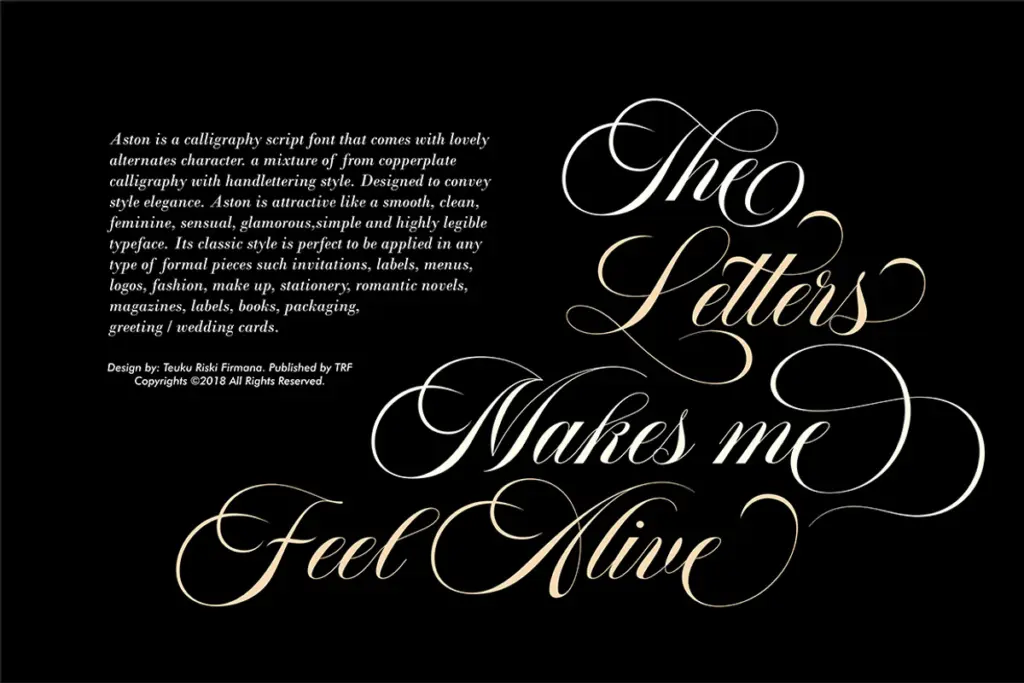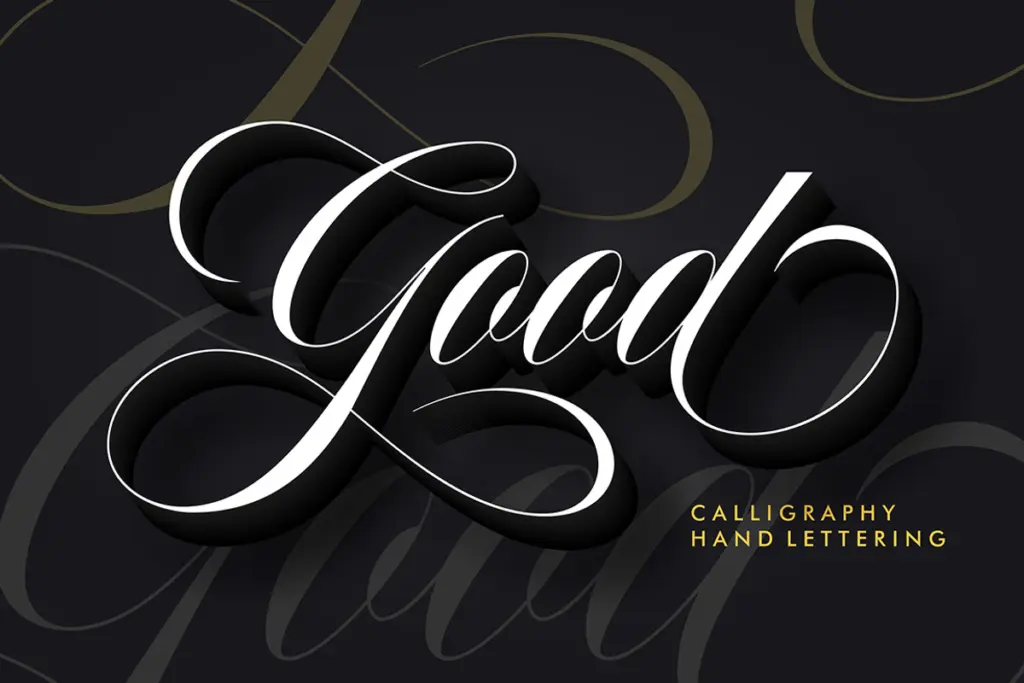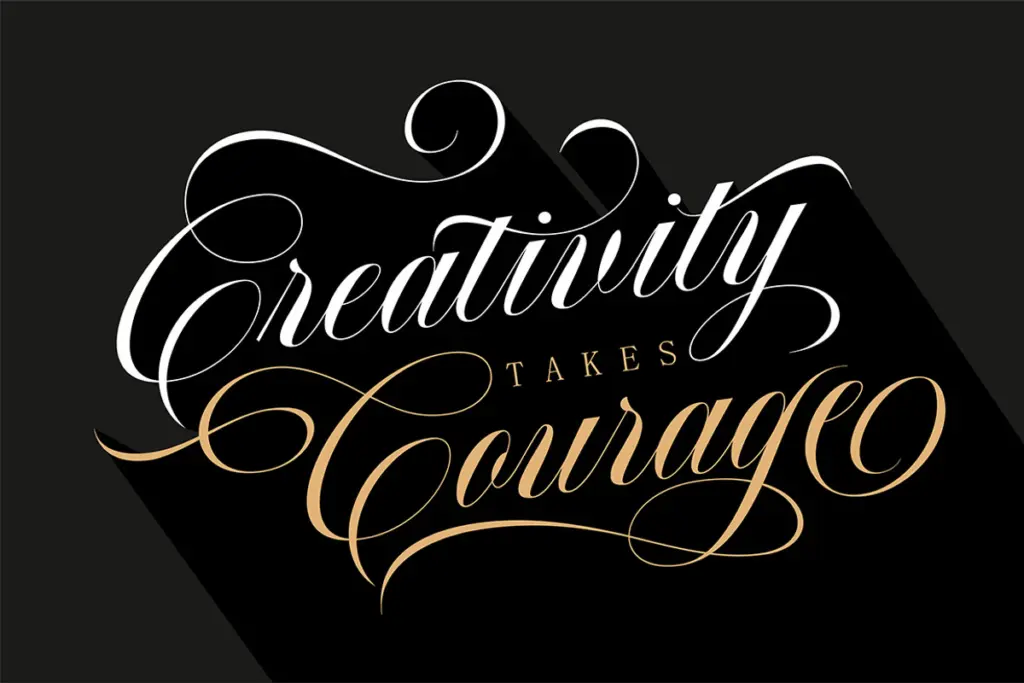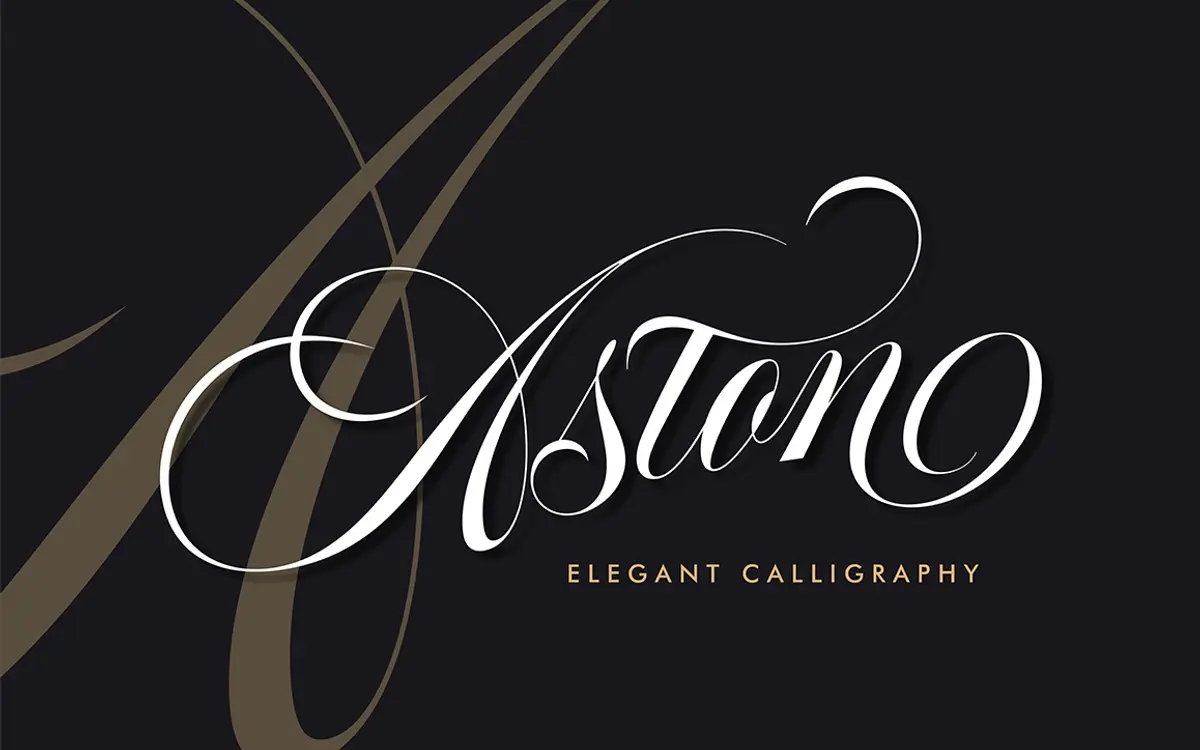
Aston Script Pro sits in the copperplate-derived family of calligraphic scripts, but it doesn’t try to be a strict pointed-pen revival. The joins are looser and the letters sit more upright than classic copperplate, which gives it a slightly more contemporary, less formal air even though the underlying skeleton is traditional. Strokes carry the expected thick-thin contrast, entry and exit strokes are long, and the lowercase leans just enough to read as script without tipping into full cursive sprawl.
Where it distinguishes itself is in the connections. The seller’s claim of ‘fancy letter connections’ is fair: many lowercase pairs have been drawn with custom ligatures rather than relying on generic kerning, so words hold together as continuous lines rather than a string of separately joined letters. That takes real drawing discipline, and it shows in how clean the baseline flow looks even before you touch any alternates.
The glyph count here is substantial — over 1,330 glyphs with more than 1,000 alternate characters, plus multilingual character support. That’s a genuinely large working set for a script face, and it means the temptation to reuse the same letterform twice in a headline is easy to avoid. Swashes, ligatures, and alternate letter styles are all present, and the font is encoded with Unicode PUA, so every alternate is reachable by typing a specific character even in apps without an OpenType glyph panel.
The catch, and it’s worth being direct about it, is that none of this richness is automatic. There’s no automatic contextual substitution stitching alternates together as you type — you choose each swash, ligature, or alternate manually through a glyph panel or PUA input. For a font with this many variants, that’s a real workflow cost. It rewards someone willing to sit with the glyph panel and build a word letter by letter, but it will frustrate anyone expecting a script font that just looks finished out of the box. Software that shows OpenType features and glyph panels — Illustrator, Photoshop, InDesign, CorelDraw — is effectively required to use the font properly.
This is a font built for short, considered pieces of type rather than paragraphs. Wedding invitations, formal stationery, packaging labels, restaurant menus and fashion or beauty branding are the natural home for it — anywhere a single word or short phrase needs to look hand-finished and a designer has time to manually select the best-fitting swash and ligature for each pairing. Logotypes benefit for the same reason: you’re setting a handful of characters once and can afford to be fussy about which alternate goes where.
It’s a poor fit for anything that needs to be typed and shipped quickly, or for body copy of any length — legibility drops fast at small sizes and the manual-alternate workflow doesn’t scale to long text. Treat it as a display and accent typeface, not a workhorse.
- Custom ligatures give joined words a genuinely continuous, hand-drawn flow
- Very large alternate and swash set gives real variation across repeated letters
- PUA encoding means every alternate is reachable even without a glyph panel
- No automatic contextual substitution — every swash and ligature must be chosen by hand
- Legibility and workflow both suffer once you move beyond short headline-length text
Aston Script Pro draws a convincing copperplate-inspired script with an unusually deep set of alternates and ligatures. The trade-off is a manual, glyph-panel-driven workflow that suits patient, short-form work far better than fast production.